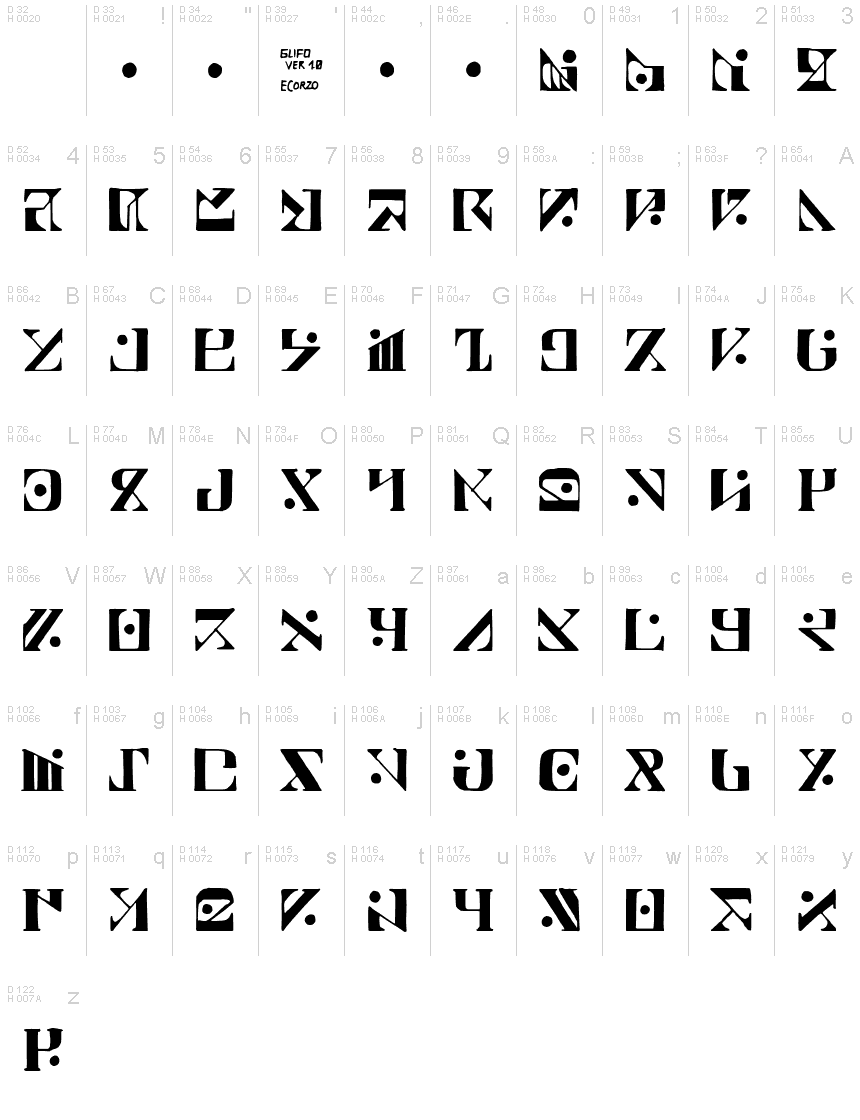
Paraghyph Ver 1 Regular
Paraghyph Ver1 font by Esteban Corzo 2020.
I designed this font for a short film I'm currently (July 27th, 2020) shooting while staying at home due the COVID-19 pandemic. This serif-like characters do have meaning in such story, but I decided to publish them because someone else may appreciate them.